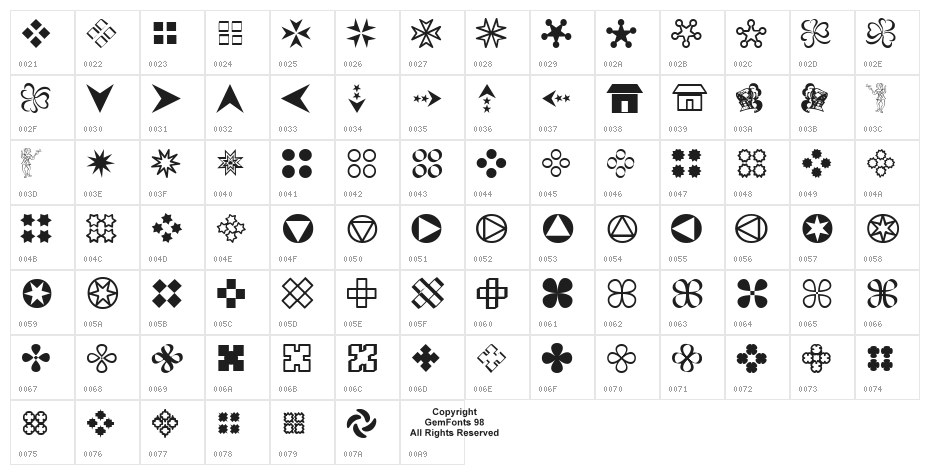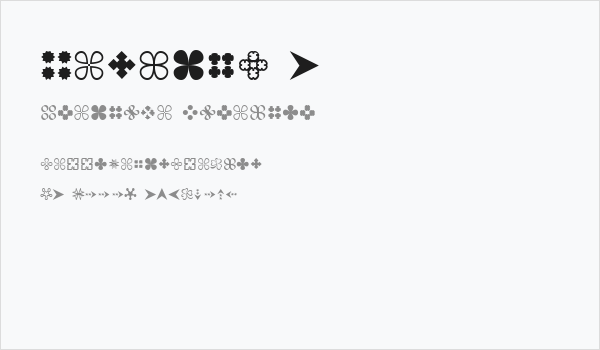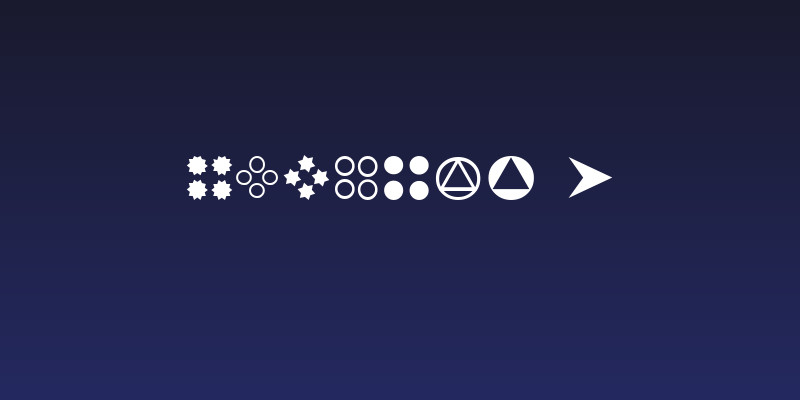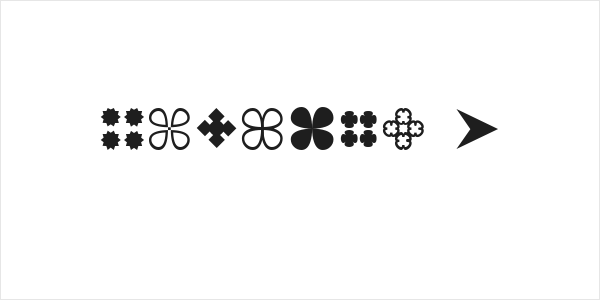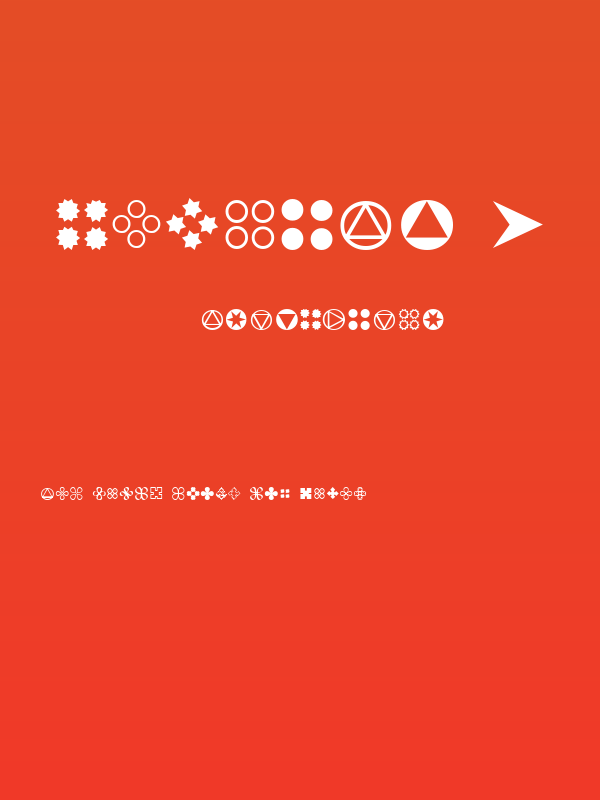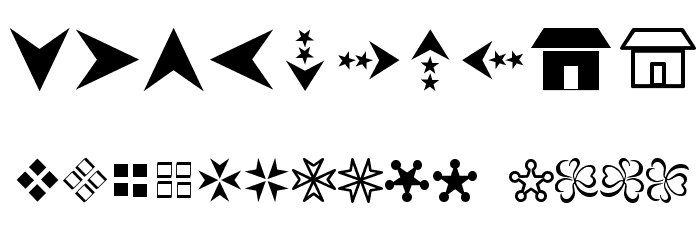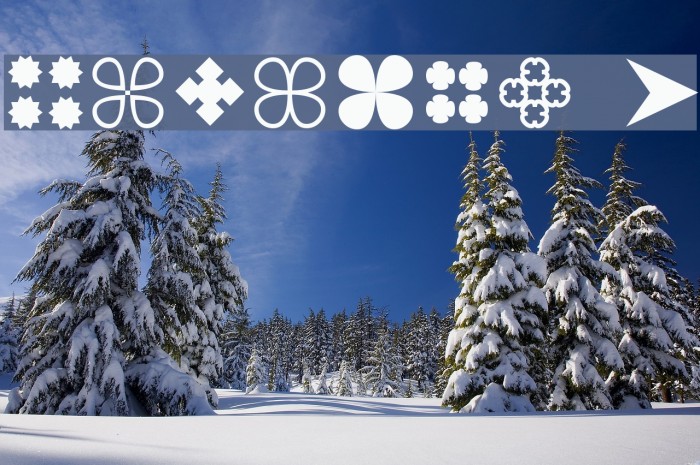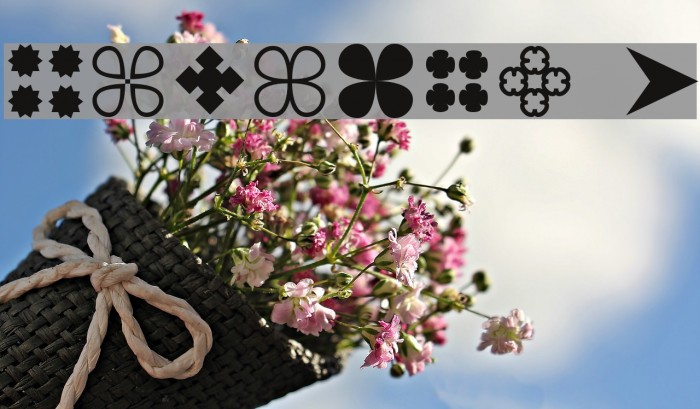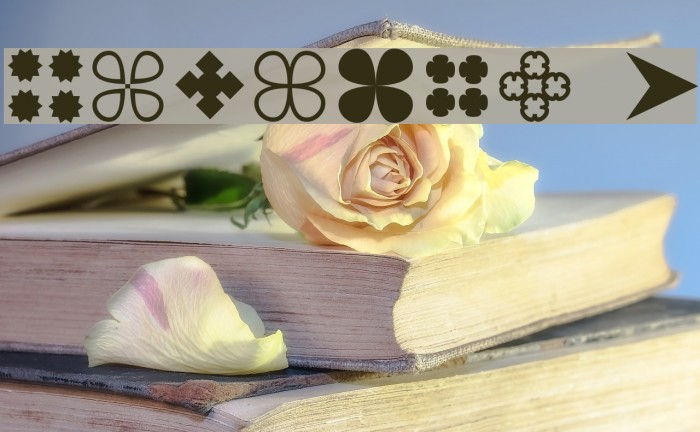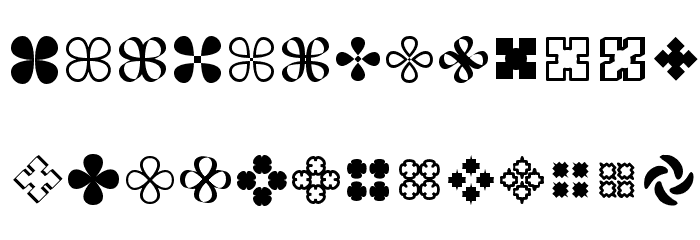
Gembats 1 Font
Gembats 1 Description
This is not a traditional font but rather a collection of decorative symbols and shapes. The design features a variety of geometric and abstract forms, including circles, stars, arrows, and house-like shapes. Each symbol is distinct, with some incorporating intricate patterns and others showcasing bold, solid fills. The collection is versatile, offering a wide range of visual elements that can be used for creative projects. The symbols are consistent in style, with a modern and playful aesthetic that can add a unique touch to any design.
| Use Case | Logos, Decorative elements |
| Proposed Projects | Ideal for use in graphic design projects, such as creating borders, icons, or decorative elements in posters and digital artwork. |